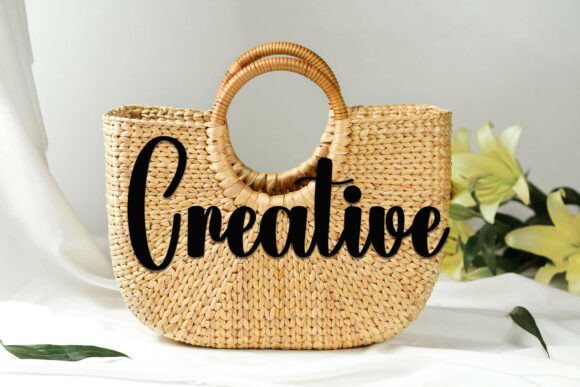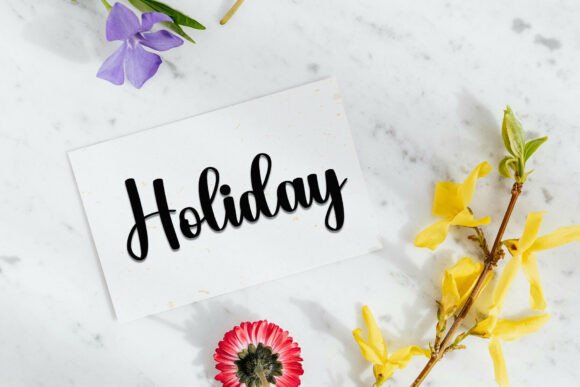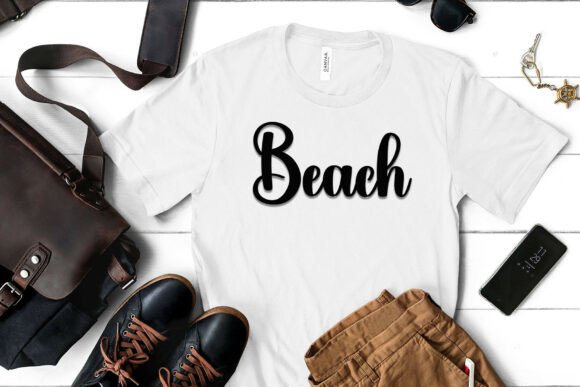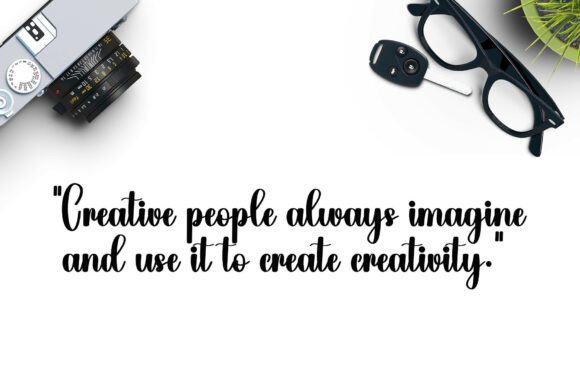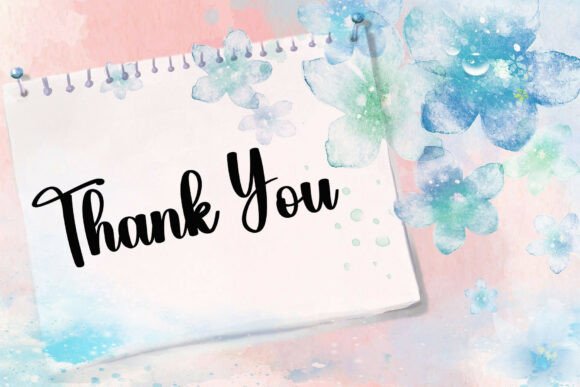
The Perfect Font for Love and Design
You know that feeling when you’re brainstorming ideas for a project and suddenly, the perfect font pops into your head? It’s like the whole design just comes together in a beautiful, romantic way. That’s exactly what happens when you discover the Honeymoon Font – a sweet and cursive handwritten font that’s sure to leave your audience swooning.
This gorgeous font is designed to add a joyful and romantic touch to any project. Whether you’re creating branding, logos, wedding invitations, or greeting cards, Honeymoon Font is the perfect choice. Its elegant yet casual style makes it versatile and valuable for designers who want to add a personal touch to their work.
Honeymoon Font Key Features
- Font Family: Honeymoon Font is a script font designed to evoke a romantic and elegant feel.
- Character Count: The font family includes a wide range of characters, including uppercase and lowercase letters, numerals, and punctuation marks.
- Unique Characteristics: The font features a flowing, cursive script with intricate details and flourishes, perfect for creating elegant and romantic designs.
Honeymoon Font Review
I’ve had the chance to work with the Honeymoon Font, and I must say it’s a beautiful, elegant script font. Here are some of its highlights: ✨
- Unique Character**: Honeymoon Font stands out with its unique, flowing lines and curves that add a touch of sophistication to any design.
- High Legibility**: The font is highly legible, making it perfect for body text, headings, and even titles.
- Perfect for Romance**: As the name suggests, this font is ideal for designs related to love, romance, and weddings.
However, like any font, Honeymoon Font has its limitations: ⚠️
- Not Ideal for Body Text in Small Sizes**: While the font is highly legible, it may not be the best choice for body text in small sizes, as the lines and curves can become too thin and difficult to read.
- Not Versatile**: The font is specifically designed for romantic and elegant designs, so it may not be the best choice for more casual or playful projects.
Overall, I think Honeymoon Font is a beautiful and elegant script font that’s perfect for designers looking to add a touch of sophistication to their projects. While it has some limitations, it’s definitely worth considering for the right project.
To get the most out of Honeymoon Font, use it for designs that require a whimsical, romantic touch, such as: